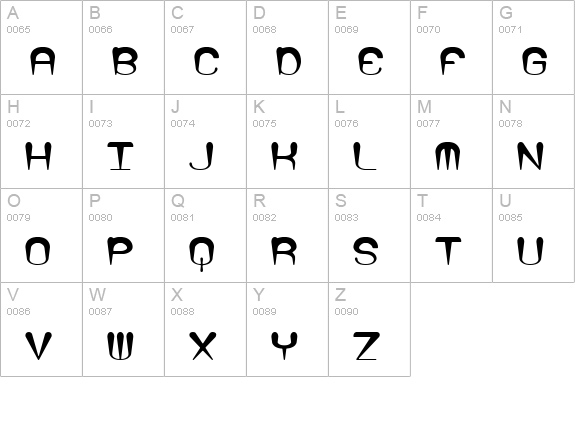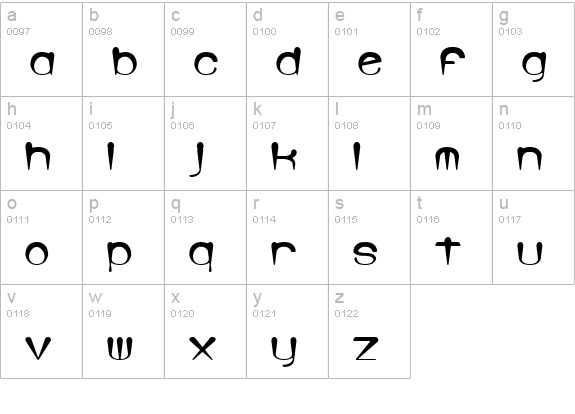
Larkspur BRK Font Details
Larkspur BRK font is a stunning display typeface that exudes elegance and sophistication. With its clean lines and graceful curves, this font is perfect for creating eye-catching designs that demand attention. Whether used for headings, logos, or invitations, Larkspur BRK font adds a touch of class to any project. What sets Larkspur BRK font apart is not only its exquisite design, but also the fact that it is completely free. Yes, you read that right! This amazing font is freely available to download at FontsMarket.com. Now you can enhance your creative endeavors without any cost or hassle. With Larkspur BRK font, you'll have endless possibilities at your fingertips. Its versatility allows it to be used in various design projects, from elegant wedding invitations to sophisticated branding materials. The carefully crafted letterforms and balanced spacing ensure legibility and readability in both print and digital media. This font's timeless appeal is further enhanced by its wide range of weights and styles. Whether you prefer a bold and impactful look or a delicate and refined aesthetic, Larkspur BRK font has got you covered. Its extensive character set includes uppercase and lowercase letters, numerals, punctuation marks, and special symbols, making it suitable for multilingual projects as well. Downloading Larkspur BRK font from FontsMarket.com is a breeze. Simply visit the website, locate the font, and click the download button. Within moments, you'll have this incredible typeface ready to enhance your designs and captivate your audience. So why wait? Unleash your creativity and elevate your design projects with the exquisite beauty of Larkspur BRK font. Download it for free at FontsMarket.com and embark on a journey of exceptional design possibilities.